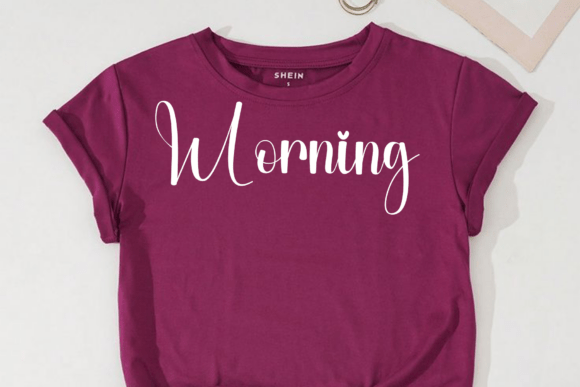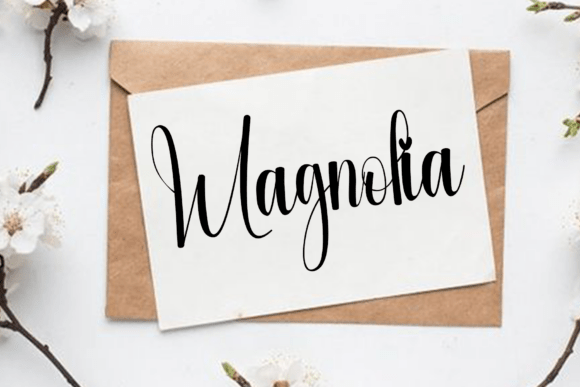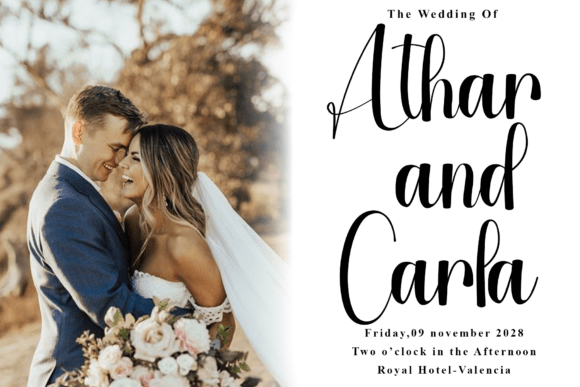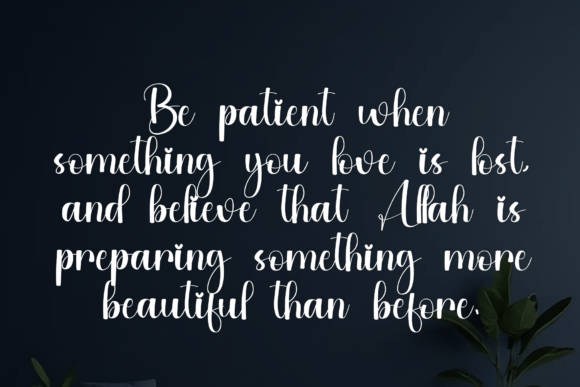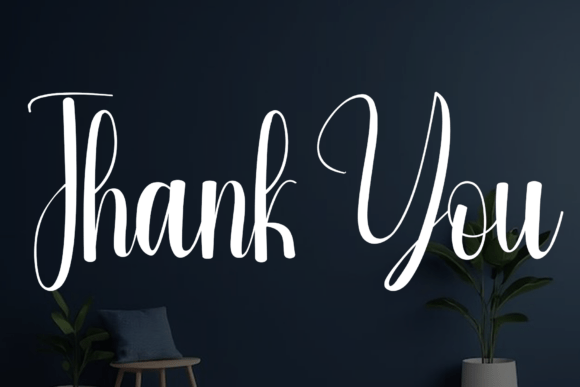
Introducing Anantha Font: Elevate Your Design with Crisp Elegance
In the realm of modern handwritten fonts, Anantha Font stands out as a unique and professional addition. Designed to evoke a sense of clarity and crisp elegance, Anantha offers a refined aesthetic that feels as fresh as a mountain breeze. Its distinctive tall, thin strokes with a subtle, airy slant make it an ideal choice for designers and crafters looking to add a touch of sophistication to their projects.
The Characteristics of Anantha Font
Anantha Font is characterized by its clean and approachable style, making it versatile for various design applications. The font’s tall, thin strokes contribute to its elegant appearance, while its subtle slant adds a dynamic and modern feel. This combination results in a typeface that exudes professionalism and sophistication, perfect for projects that require a crisp and refined look.
Ideal Applications for Anantha Font
Given its unique characteristics, Anantha Font is particularly well-suited for:
- Travel Photography: The font’s fresh and airy feel complements travel photography by adding a sense of adventure and elegance to captions and titles.
- Branding for Outdoor Gear: For outdoor gear and equipment brands, Anantha Font offers a sophisticated and modern look that aligns well with high-quality products and the great outdoors.
- Sophisticated Web Design: In web design, Anantha can be used to create a clean and professional look, enhancing the user experience with its readability and aesthetic appeal.
Why Choose Anantha Font?
There are several reasons why designers and crafters might prefer Anantha Font for their projects:
- Versatility: Anantha’s clean and elegant design makes it suitable for a wide range of projects, from digital applications to print materials.
- Readability: The font’s clear and crisp strokes ensure high readability, making it an excellent choice for body text as well as headlines.
- Uniqueness: In a sea of sans-serif and traditional serif fonts, Anantha offers a distinctive look that can help brands and projects stand out.
Tips for Using Anantha Font Effectively
To make the most of Anantha Font, consider the following tips:
- Pair with Complementary Fonts: Anantha works well when paired with fonts that have a slightly warmer or more traditional feel, creating a balanced and engaging visual experience.
- Experiment with Spacing: Given its thin strokes, experimenting with spacing (kerning and line height) can help optimize the font’s appearance for readability and aesthetic impact.
- Utilize Font Weights: If available, using different weights of Anantha can add depth to your design, from light for body text to bold for headings.
Anantha Font is a remarkable addition to the world of modern handwritten fonts, offering a unique blend of elegance, clarity, and freshness. Its suitability for travel photography, outdoor gear branding, and sophisticated web design makes it a versatile tool for designers and crafters. By incorporating Anantha into your projects, you can achieve a refined and professional look that stands out in today’s digital landscape.
Whether you’re a seasoned designer or a crafting enthusiast, Anantha Font invites you to explore new possibilities in typography and design. Experience the difference that a well-crafted font can make in elevating your work to new heights of sophistication and appeal.